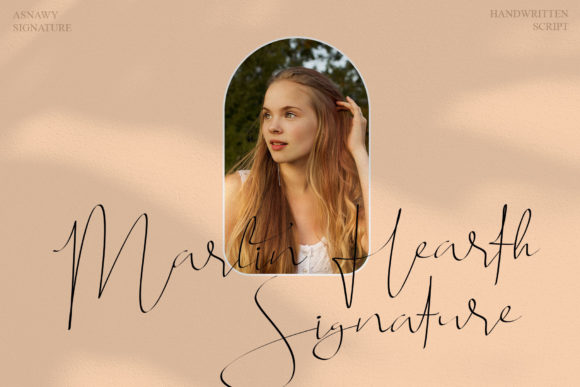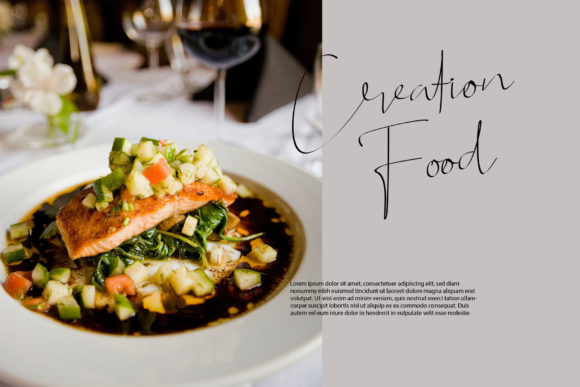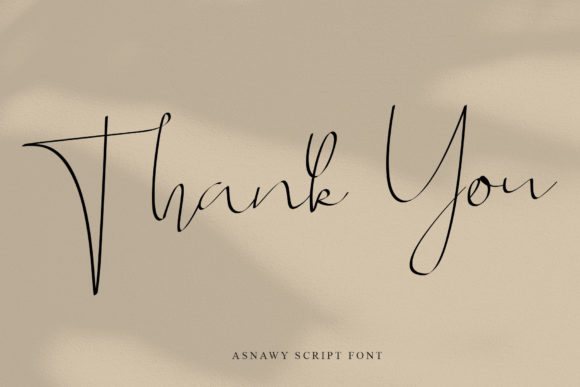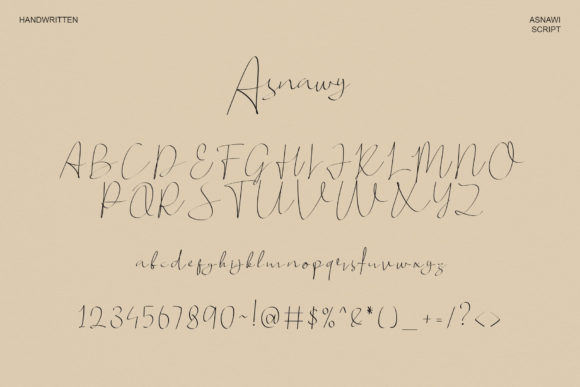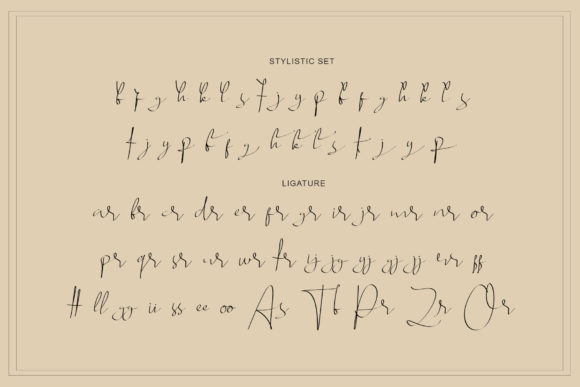
Asnawy Font
About Asnawy Font
Asnawy is a thin lettered, delicate and luxurious script font. This font is PUA encoded which means you can access all of the glyphs and swashes with ease!